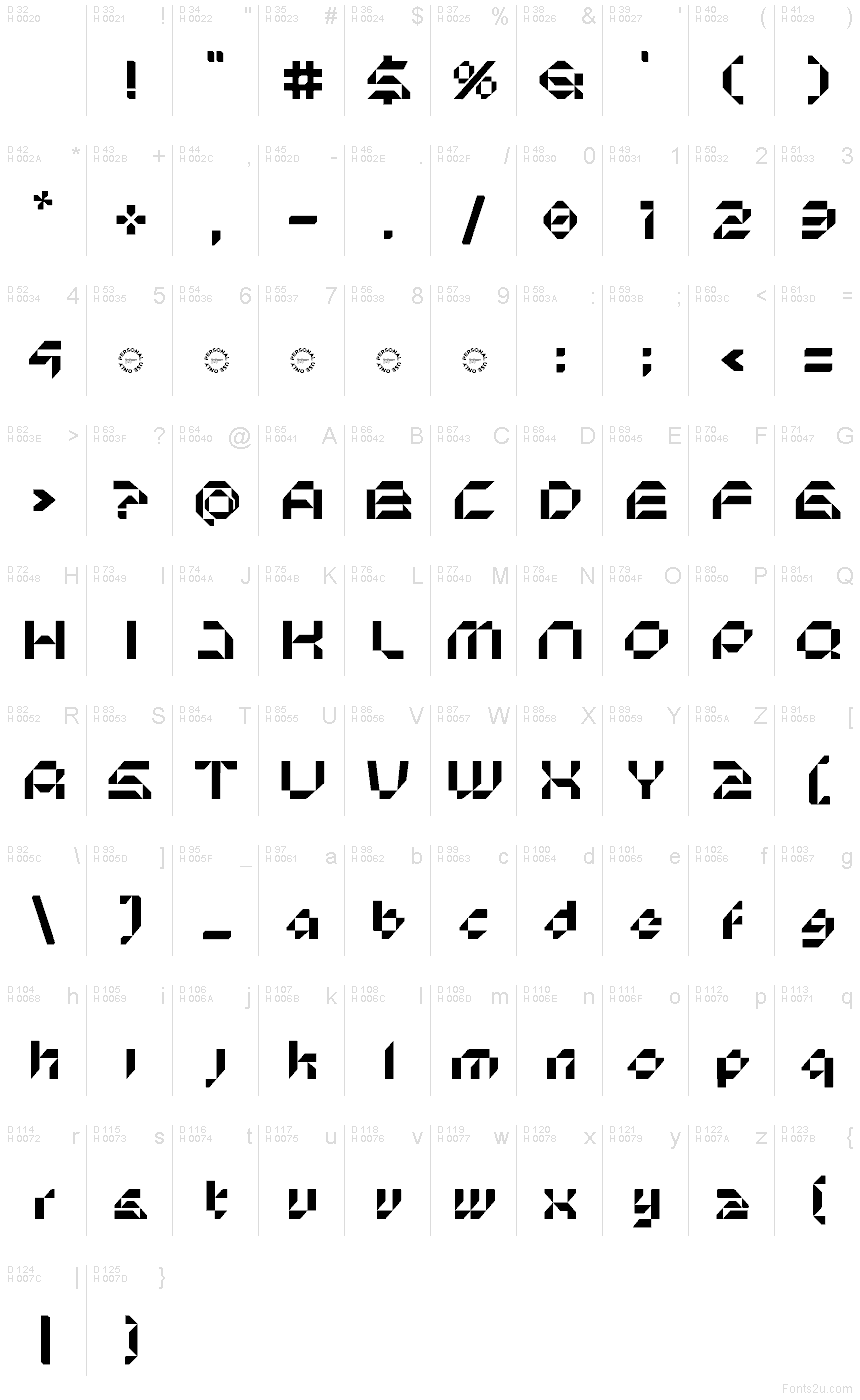
Robocops Demo
Robocops font by Limitype is a digital display, expanded font that features bold lettering. The typeface has a modular design built with geometric shapes and pixelated structures. All letters feature sharp angles for an 8-bit or retro look inspired by early digital fonts and characterized by a tech-oriented aesthetic.